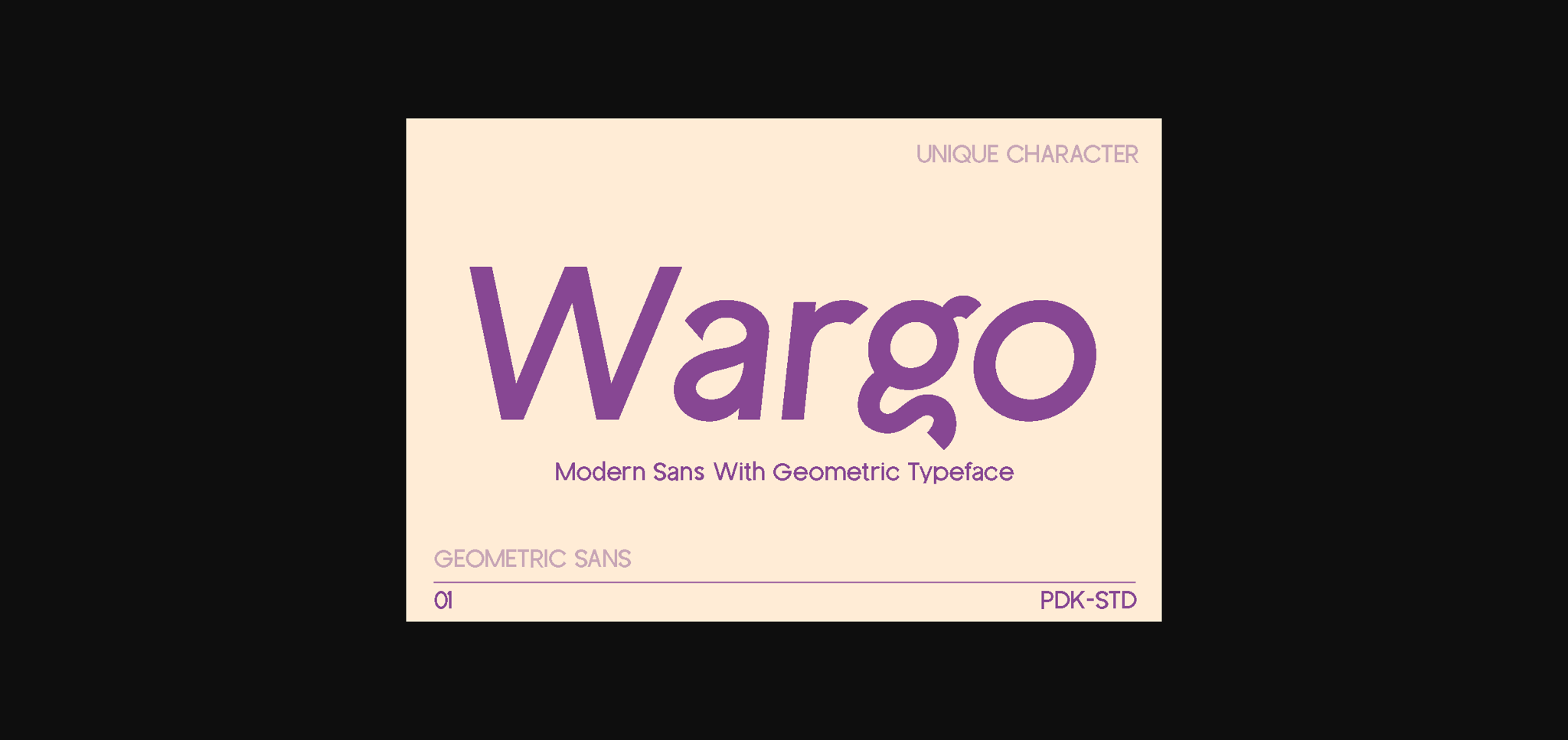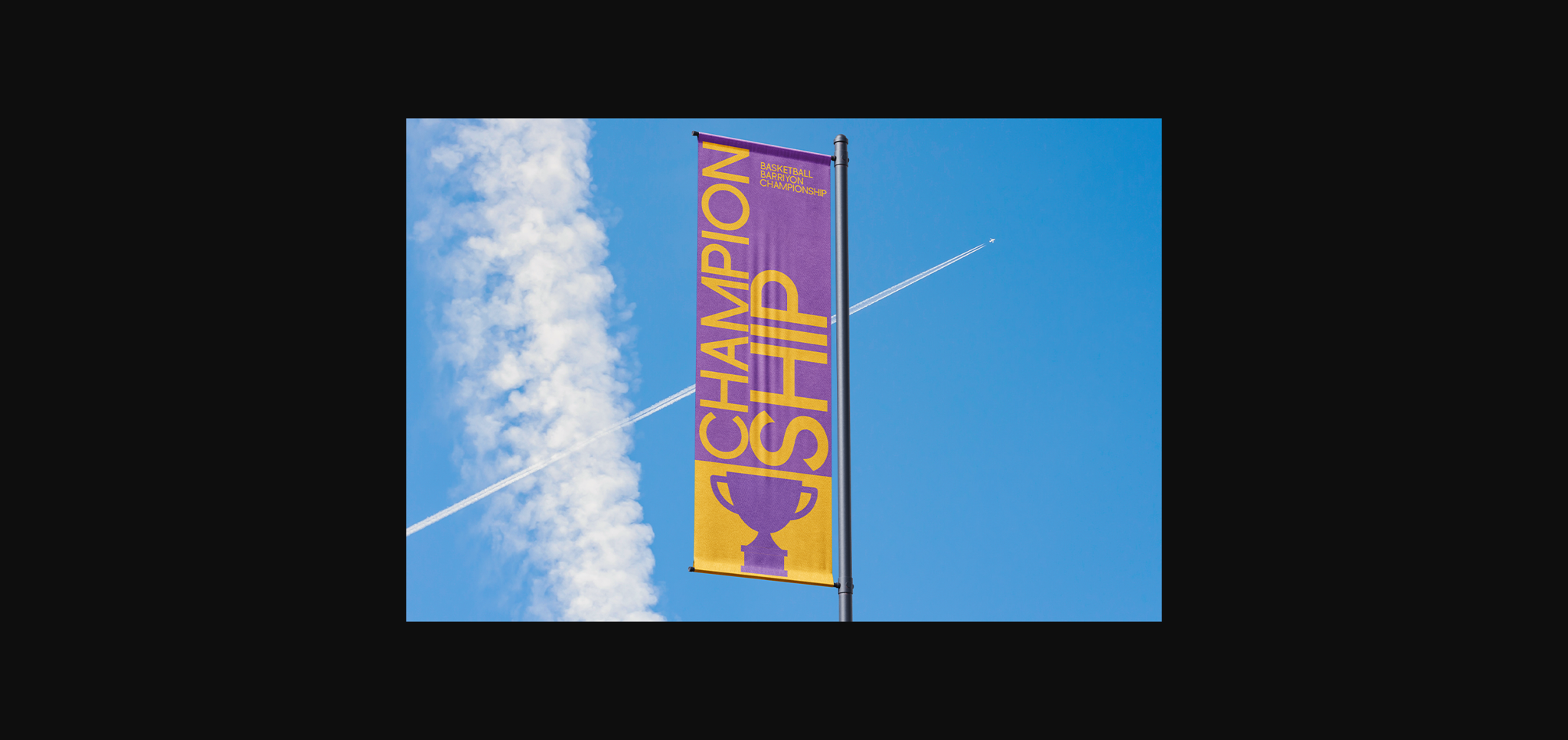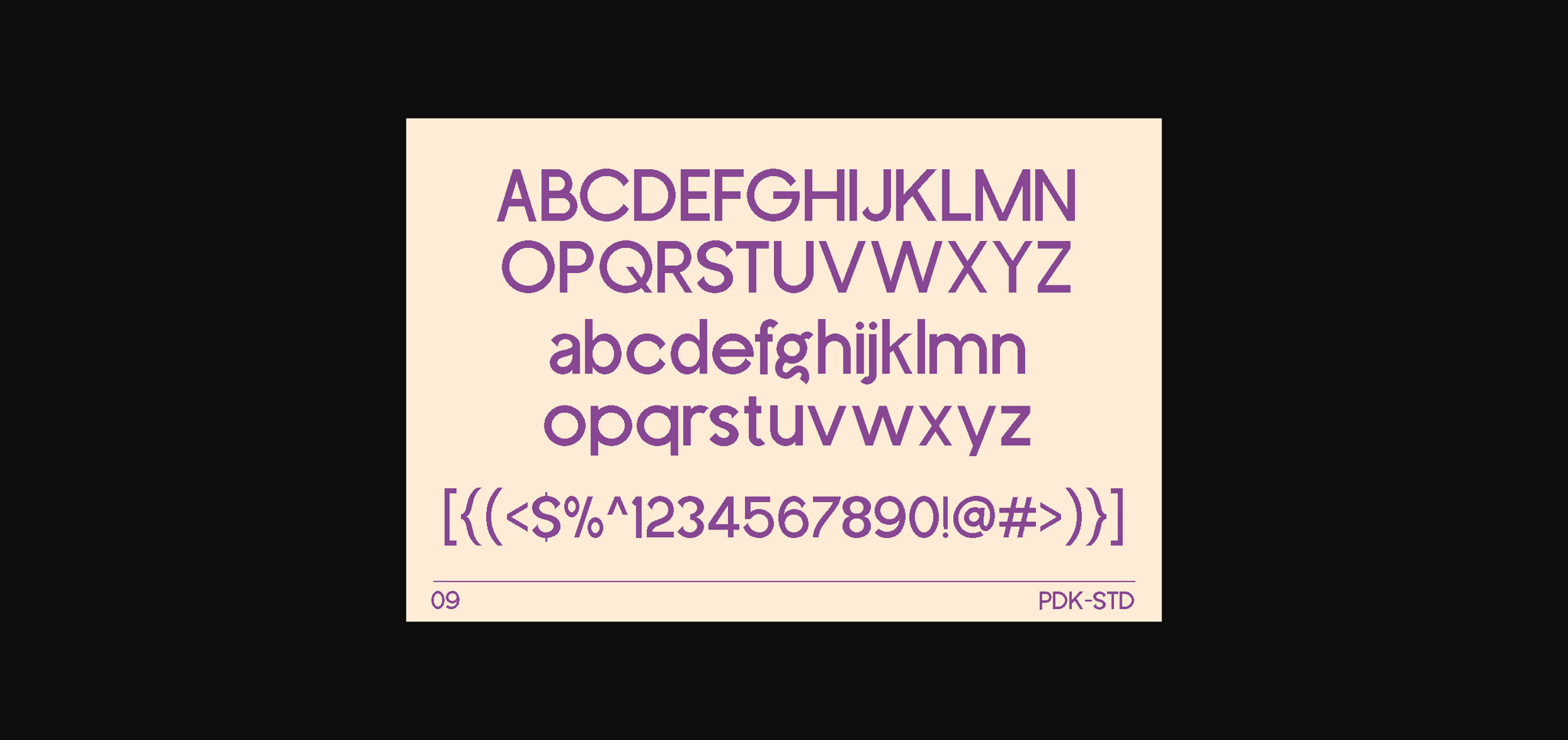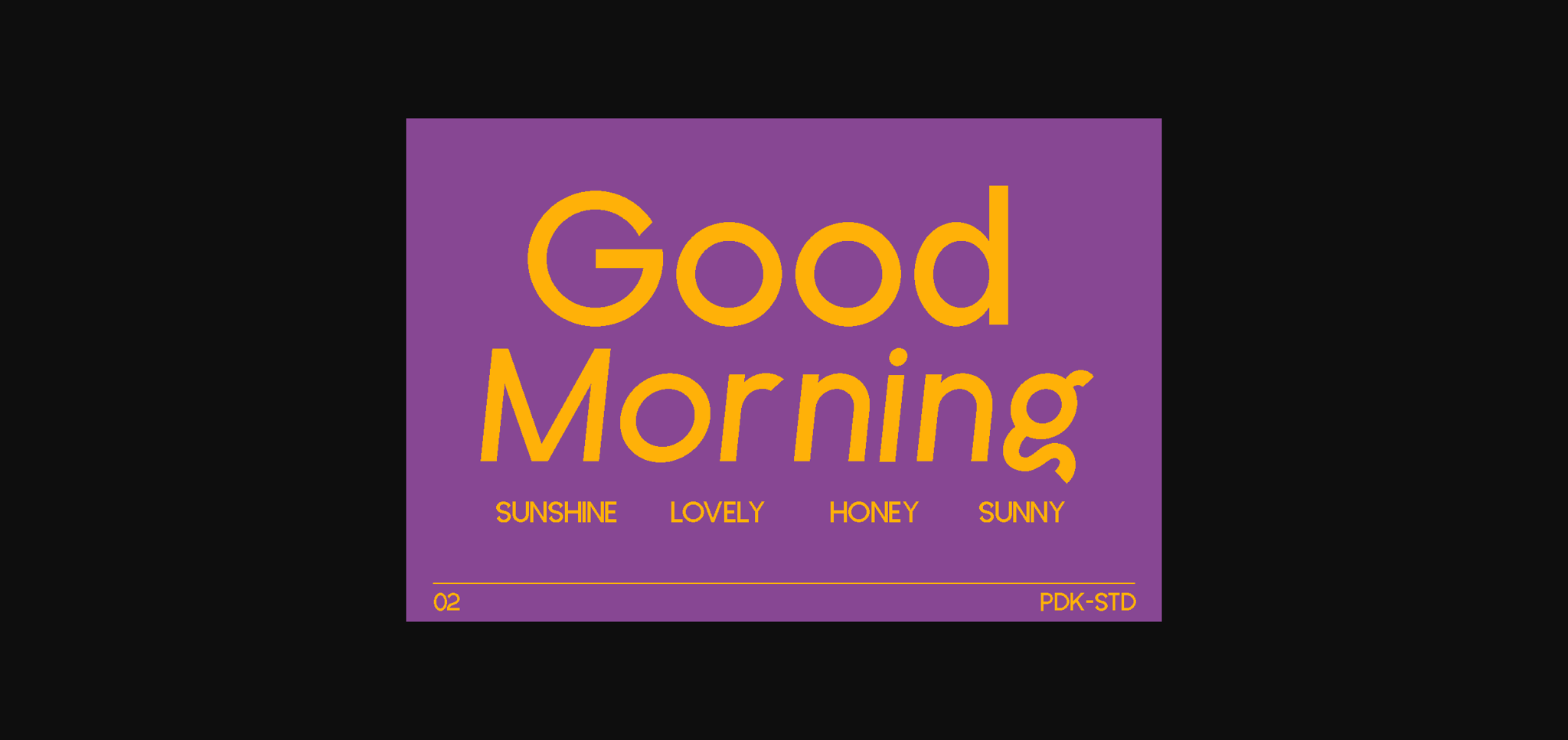
About Wargo Font
Introducing Wargo! An geometric font with soft, charming rounded edges and curves.
Wargo is a geometric sans serif font family with unique characters for a touch of distinction. Simple yet sophisticated, this typeface design gives a clean and modern appearance while carrying some almost retro tones.